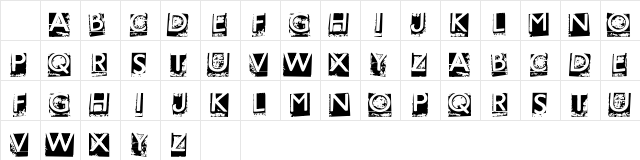
HOTMETAL Normal
Design Context for HOTMETAL Typeface
HOTMETAL is a composed and adaptable typeface that performs quietly and consistently across a wide range of design contexts.